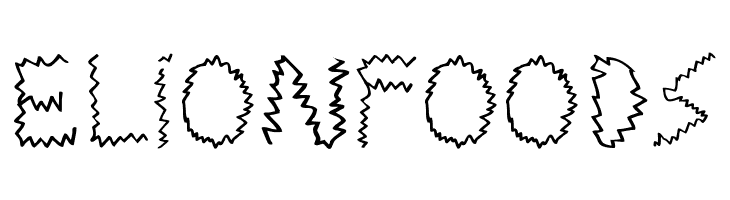
electrical Font
A bold, cracked texture font with a rugged, edgy appearance.
A fragmented, abstract font with jagged edges and a chaotic, modern style.
Electrical Snow Extended Oblique Font
A bold, oblique font with sharp, angular cuts and a dynamic, fragmented style.
Electrical Snow Blizzard ReverseOblique Font
A bold, fragmented font with a chaotic, wind-swept appearance.
Waning Moon Regular Font
A futuristic, geometric font with sharp angles and bold, blocky characters.
Electrical Snow Extended Font